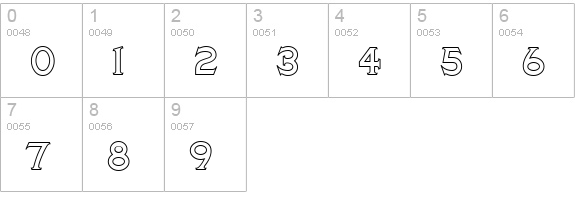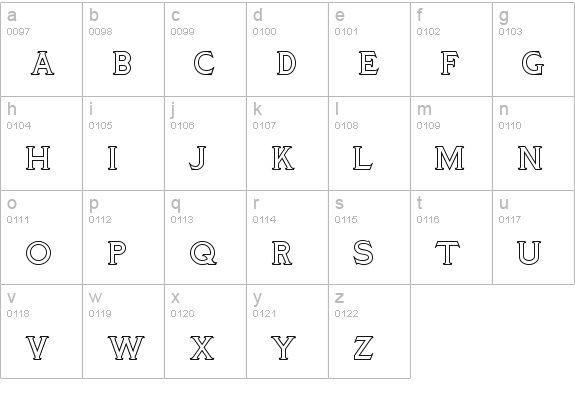
The Ozymandias Outline WBW font is a striking and bold typeface that exudes an air of modernity and creativity. Its unique outline design gives it a distinct edge, making it perfect for headlines, logos, and other design projects that require a touch of sophistication. The sleek lines and sharp angles of this font make it stand out on any screen or print material, grabbing the viewer's attention instantly. What's even better is that the Ozymandias Outline WBW font is available for free download at FontsMarket.com. This means you can elevate your designs without having to spend a penny. Whether you're a graphic designer, branding expert, or simply someone looking to add a touch of flair to your projects, this font is a must-have in your collection. Download it now and let your creativity soar with Ozymandias Outline WBW!